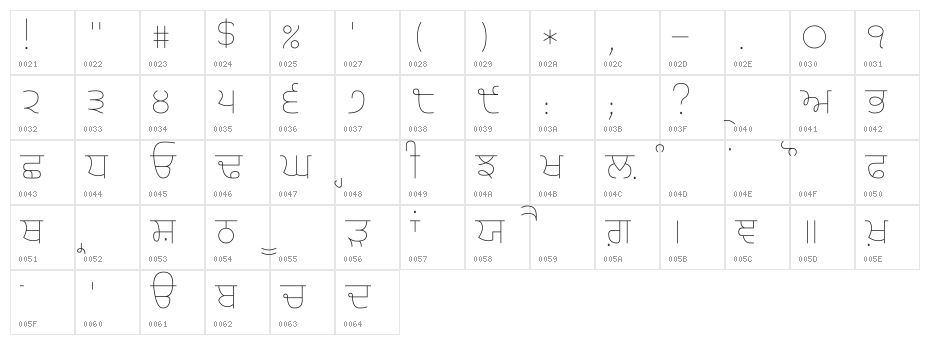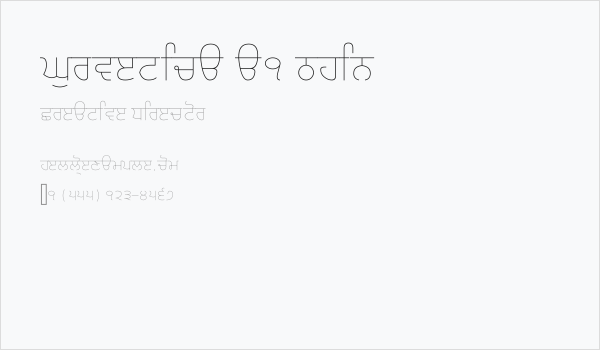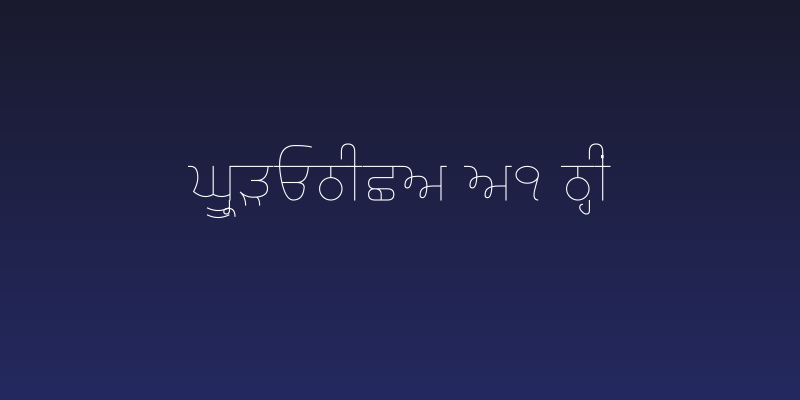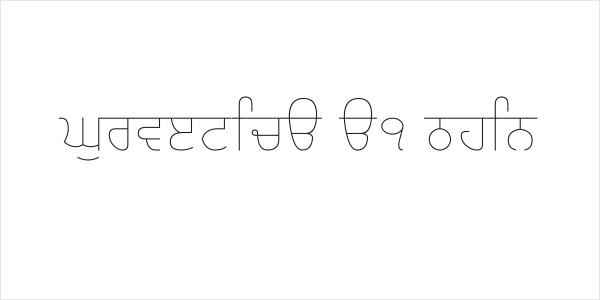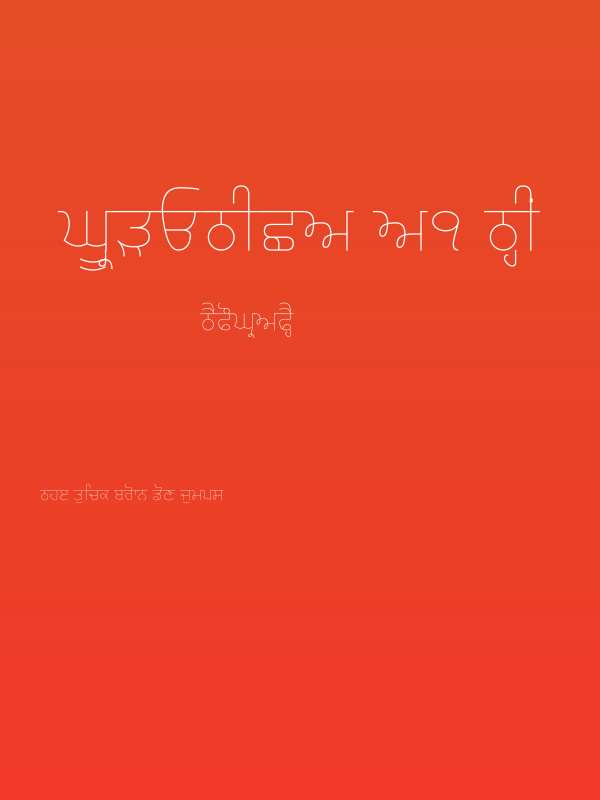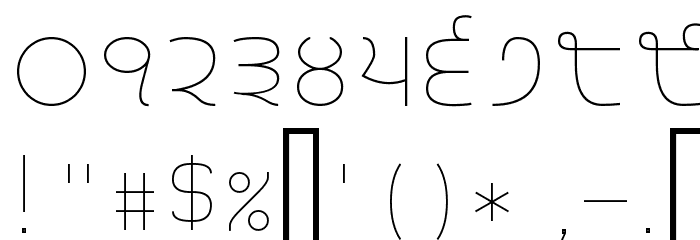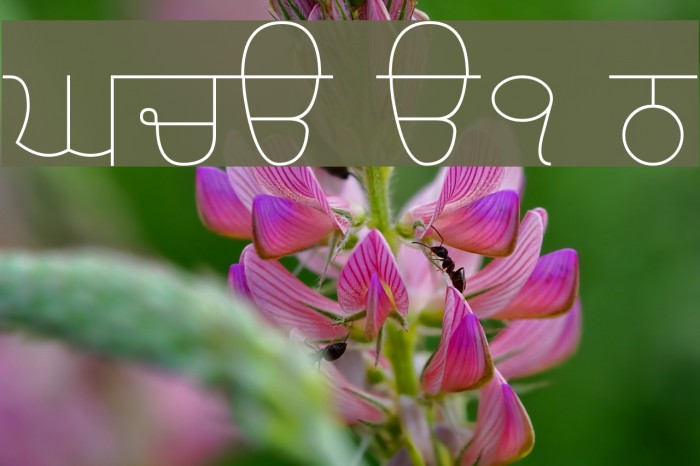
Gurvetica a1 Thin Font
Gurvetica a1 Thin Description
This font features a unique blend of modern and traditional elements, characterized by its thin, elegant strokes and distinctive curves. The characters exhibit a high level of detail, with an emphasis on circular and semi-circular forms that give it a sophisticated and artistic appearance. The font maintains a consistent line weight throughout, contributing to its clean and minimalistic aesthetic. Its design is both functional and decorative, making it suitable for a variety of creative applications. The spacing between characters is balanced, ensuring readability while maintaining its stylish look.
| Use Case | Logos, Artistic projects, Invitations |
| Proposed Projects | Ideal for branding, invitations, artistic projects, and any design work requiring a touch of elegance and sophistication. |